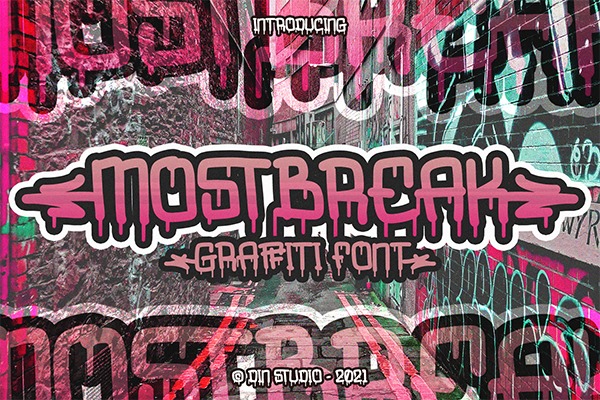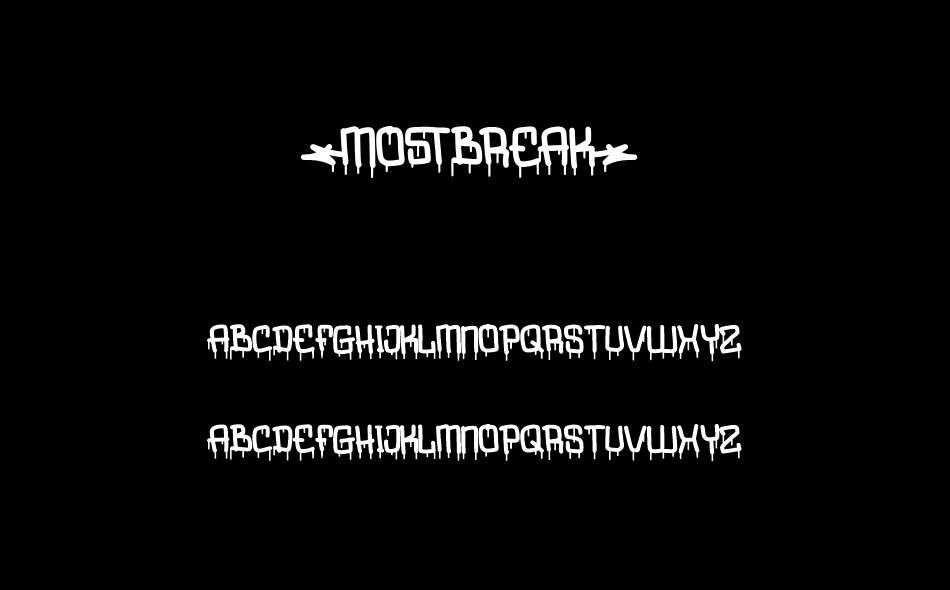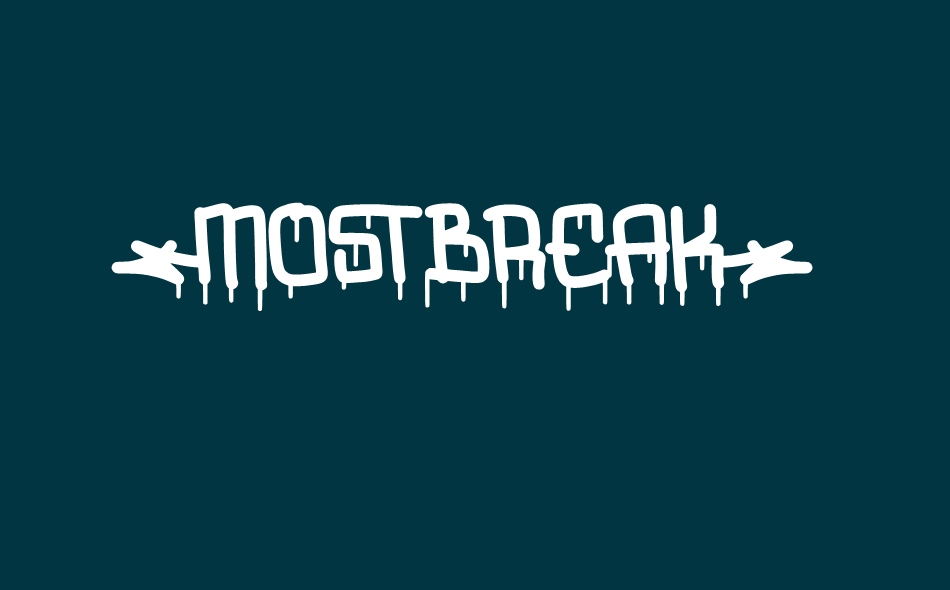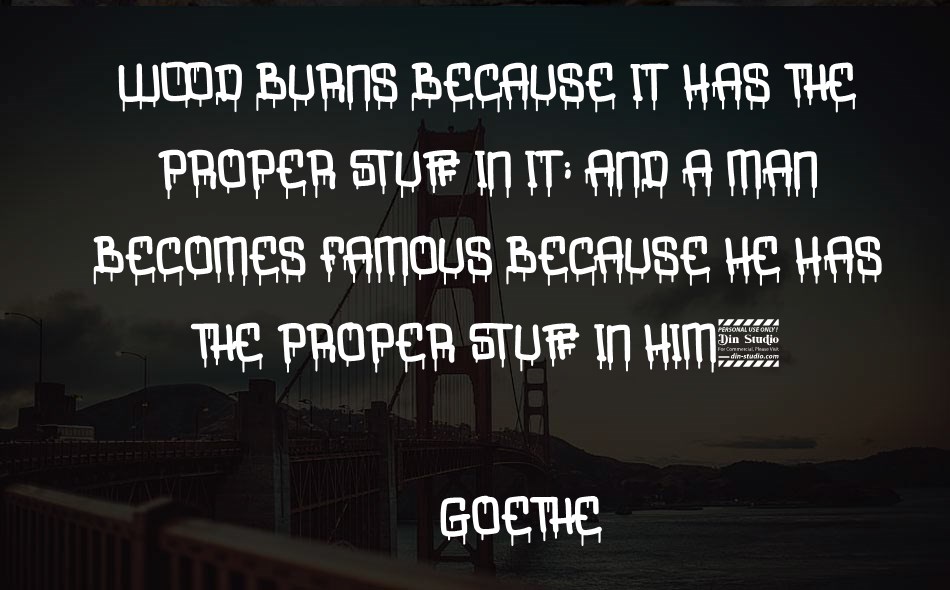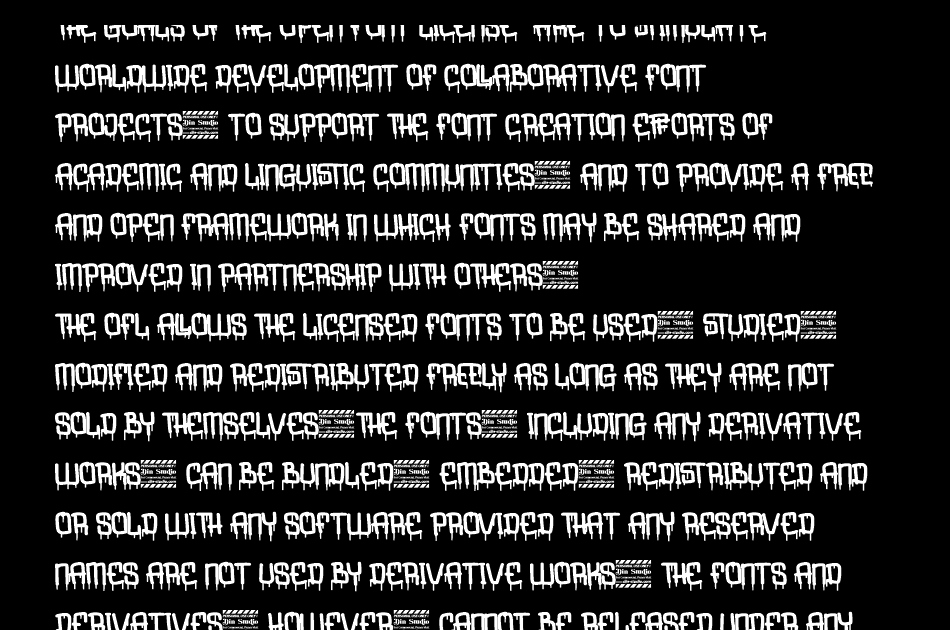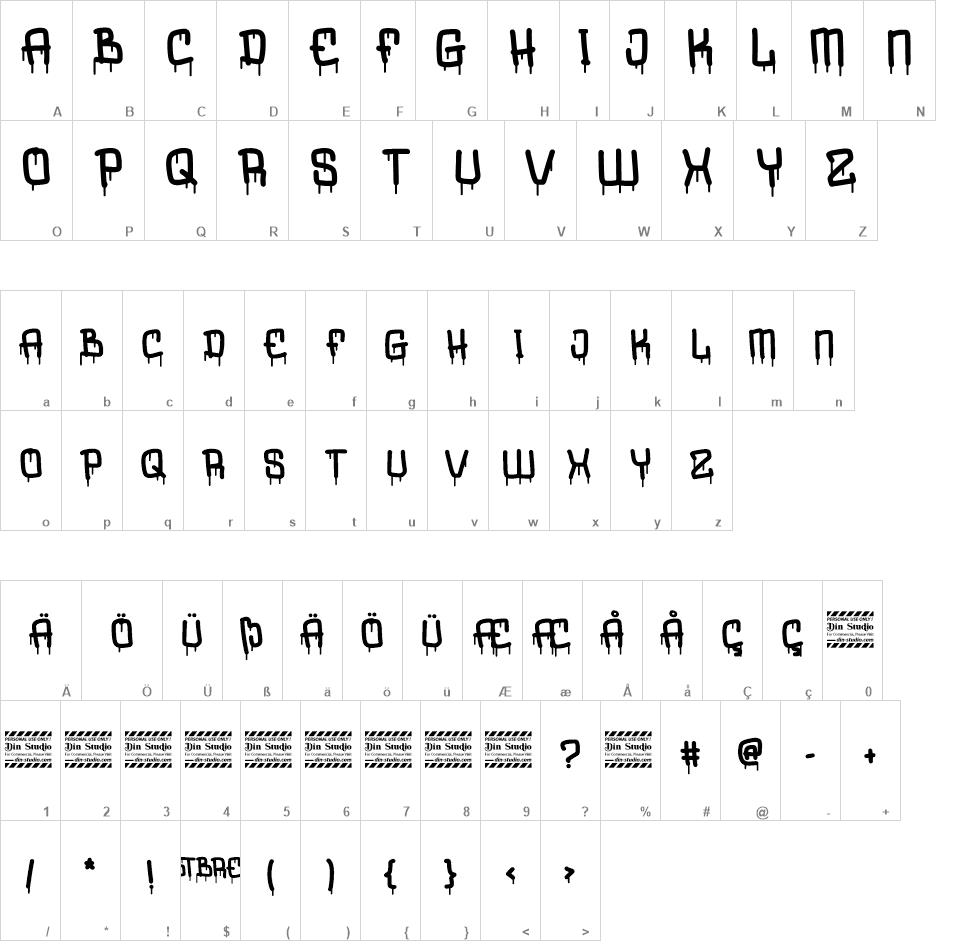
Mostbreak font
Mostbreak is an uppercase typeface that combines the elements of a graffiti style, with a cute bubble
aesthetic. A great display font that appears to drip down on the page, as if sprayed there only
moments ago. Well suited to titles, poster designs, branding, and logos.
Our font always includes Multilingual Support to make your branding reach a global audience.
Features:
• Ligatures
• Swashes
• Multilingual Support
• PUA Encoded
• Numerals and Punctuation